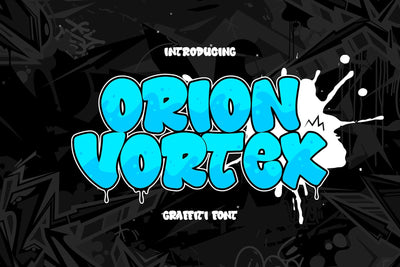
Orion Vortex - Rounded Graffiti Font
Orion Vortex is a rounded graffiti font crafted for designers who want bold, fun, and expressive street-inspired typography. Built with thick bubble shapes and smooth energetic curves, this typeface captures the playful side of graffiti culture—big, bouncy, loud, and full of personality.
Every letter carries an inflated, cartoon-like structure that mimics bubble tags commonly found in colorful street murals. With rounded edges, soft curves, and subtle drip elements, the font feels alive and dynamic. Orion Vortex brings a unique blend of urban style and cheerful energy, making it perfect for both professional design work and creative personal projects.
This font includes uppercase letters, numbers, punctuation, multilingual support, and stylistic alternates, giving designers plenty of flexibility and expressive potential. The alternates help create natural graffiti movement, allowing text layouts to feel organic and hand-lettered rather than repetitive or mechanical.
Use Cases
Orion Vortex excels in bold and energetic design environments such as:
• Streetwear apparel
• Kids branding & playful packaging
• Hip-hop event visuals
• Bubble-style graffiti artworks
• Stickers, posters, and merchandise
• YouTube thumbnails & social media graphics
• Gaming titles and cartoon characters
The rounded graffiti style ensures high readability while still delivering powerful street attitude. The big shapes give text a strong presence, making it ideal for large headlines or expressive artistic compositions.
Why Designers Choose Orion Vortex
• Unique bubble graffiti style
• Rounded shapes that feel fun and friendly
• Bold outlines perfect for modern street design
• Strong visual presence in both digital & print
• Easy to combine with bright colors and dynamic layouts
Whether you're creating colorful artwork or bold urban branding, Orion Vortex brings vibrancy, movement, and street culture into every project.